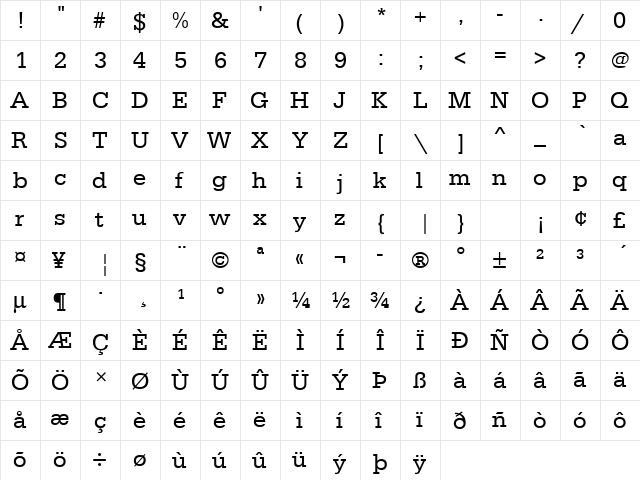
URWEgyptienneT Regular
Design Context for URWEgyptienneT Typeface
URWEgyptienneT is a composed and adaptable typeface that performs quietly and consistently across a wide range of design contexts.